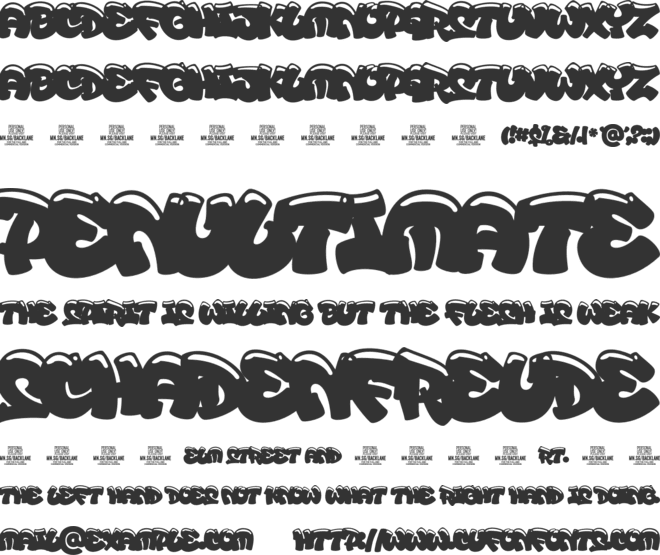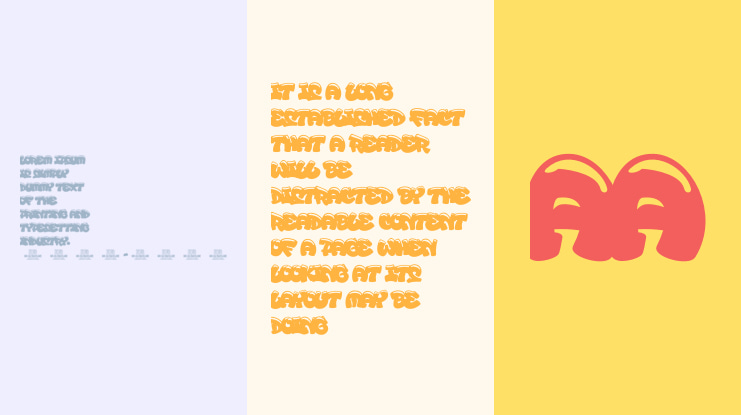
Backlane PERSONAL USE Font
Mans Greback
NOTE: This font is for PERSONAL USE ONLY!To purchase a commercial license, visit:https://www.mansgreback.com/product/backlaneBacklane is a bold graffiti-style display font inspired by street lettering and painted walls. Its rounded shapes, heavy outlines and playful proportions give it a loud yet friendly presence. The letters feel hand-drawn but controlled, with a smooth flow that keeps words readable even when they stretch wide.For questions, please visit https://mansgreback.com/faq